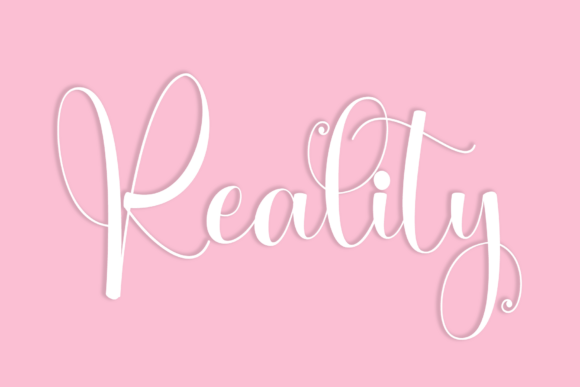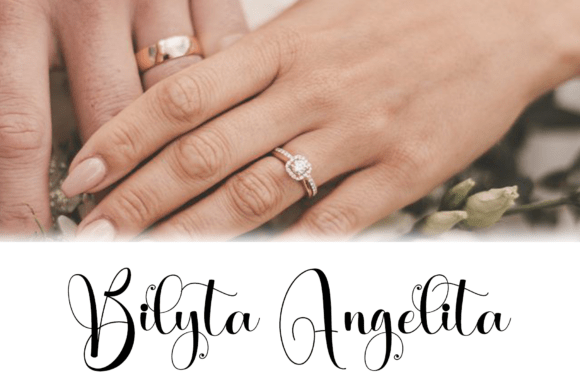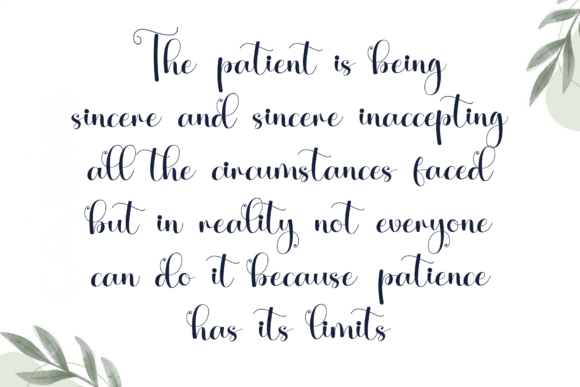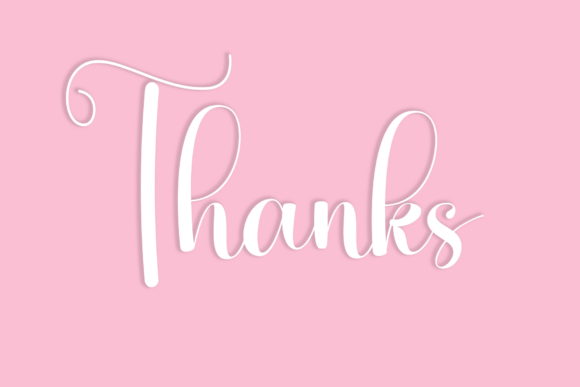
Discover the Unique Charm of Jelyta Font
As a designer, there’s nothing quite like the thrill of finding the perfect font to elevate your creative project. Whether you’re crafting a stunning brand identity or a captivating editorial piece, the right font can make all the difference. I still remember the moment I stumbled upon Jelyta Font – its sweeping, looping ascenders and high-contrast visual rhythm had me hooked from the very start.
Jelyta Font is more than just a design resource; it’s a versatile tool that offers a sophisticated and rhythmic script style that balances calligraphy with a warm, organic aesthetic. Its unique blend of thick downstrokes and delicate hairline connectors makes it a premier choice for a wide range of creative applications, from artisanal food branding to upscale lifestyle marketing.
Key Features of Jelyta Font
• High-quality design resource ideal for creative projects, offering a unique and stylish touch.
• Features a unique and elegant design, perfect for use in branding, advertising, and other creative applications.
Honest Review: Jelyta Font
I recently had the opportunity to try out the Jelyta Font, and I must say, it’s a great addition to any design resource collection. The high quality of this font is immediately apparent, making it perfect for a wide range of creative projects.
One of the standout features of the Jelyta Font is its versatility. It’s available for free download, which is a major plus for designers on a budget. I was impressed by the variety of weights and styles that come with this font, making it easy to find the perfect fit for my project.
Here are some of the things that work well with the Jelyta Font:
• ✨ High-quality design that’s perfect for creative projects
• ✨ Versatile with multiple weights and styles to choose from
However, I did encounter a few limitations with the Jelyta Font:
• ⚠️ Some users may find the font’s design a bit too bold or overpowering for certain projects
Overall, I’m impressed with the Jelyta Font. It’s a solid addition to any design resource collection, and its high quality and versatility make it a great choice for a wide range of creative projects.
Tips for Getting the Most Out of Jelyta Font
Experiment with different font sizes and styles to add depth and interest to your designs.
Combine the Jelyta Font with other design elements, such as images and shapes, to create unique and creative projects.